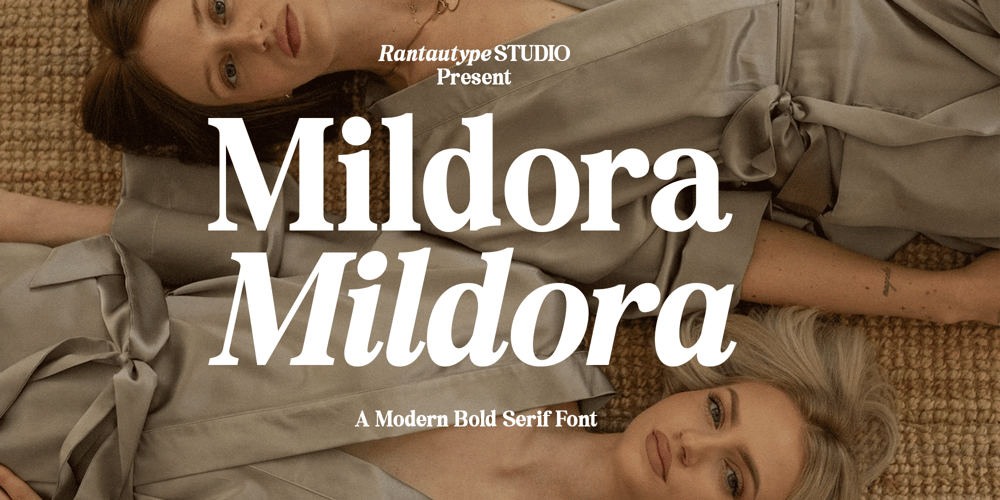
Mildora
Mildora font
Mildora Font Family was designed by Yudi Pratama Chandra and published by RantauType. Mildora contains 2 styles and family package options. Mildora is a display typeface with single bold weight. Its inspired by 70’s vibes, both come in two versions one with more contrast and crisper, you can mix and match them to create creative design project.Mildora is a beautiful choice for any creative endeavor, creating elegant, modern, chic, lifestyle design such as logotype, title, cover, branding, invitations, wedding designs, display and magazine, social media posts, advertisements, printed quotes, product packaging, corporate brand, product designs, labels, photography, watermarks, special events and any other project with nostalgic or elegant touch.What you have: Standart Glyphs Numberial and Functional Ligature and alternate Works on PC & Mac Simple installations Accessible in Adobe Illustrator, Adobe Photoshop, Adobe InDesign, even work on Microsoft Word. Fonts include multilingual support for: Afrikaans, Albanian, Basque, Bemba, Bena, Breton, Catalan, Chiga, Cornish, Danish, Dutch, English, Estonian, Filipino, Finnish, French, Galician, German, Icelandic, Indonesian, Irish, Italian, Kinyarwanda, Luxembourgish, North, Norwegian, Portuguese, Romansh, Rombo, Rundi, Scottish, Gaelic, Sena, Shambala, Shona, Soga, Somali, Spanish, Swahili, Swedish, Swiss, German.Thank you for your purchase!Hope you enjoy with our font!